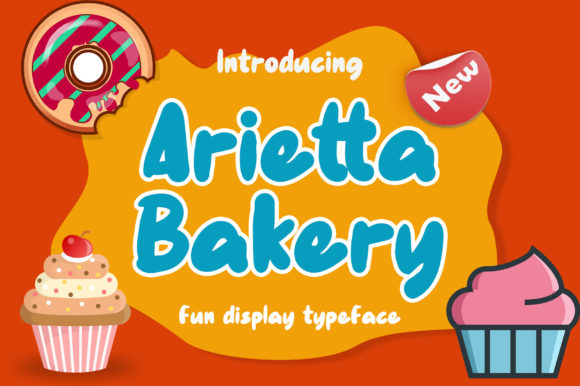
Journey into the world of Arietta Bakery, a display font brimming with charm and character. Its playful and inviting curves dance across your designs, captivating your audience with a touch of whimsy and delight.
With Arietta Bakery, you'll find limitless possibilities for expression. Let your imagination soar as you craft bold hashtags, alluring social media posts, eye-catching logos, and unforgettable branding. Each character in this font is a work of art, meticulously crafted to add a dash of personality to your creative endeavors.
Step into the spotlight with Arietta Bakery, the font that turns your words into unforgettable statements. Its unique letterforms demand attention, making it the perfect choice for grabbing the spotlight on social media or leaving a lasting impression in print.
Unlock the secrets of Arietta Bakery, a font that empowers you to unleash your creativity. Its versatile nature allows you to effortlessly adapt to any project, from playful invitations to bold marketing campaigns. Watch as your designs transform into captivating masterpieces that resonate with your audience.
Elevate your designs to new heights with Arietta Bakery, a font family that fuels your imagination. Its playful style adds a touch of magic to everyday designs, while its bold personality shines through in impactful headlines and captivating branding.